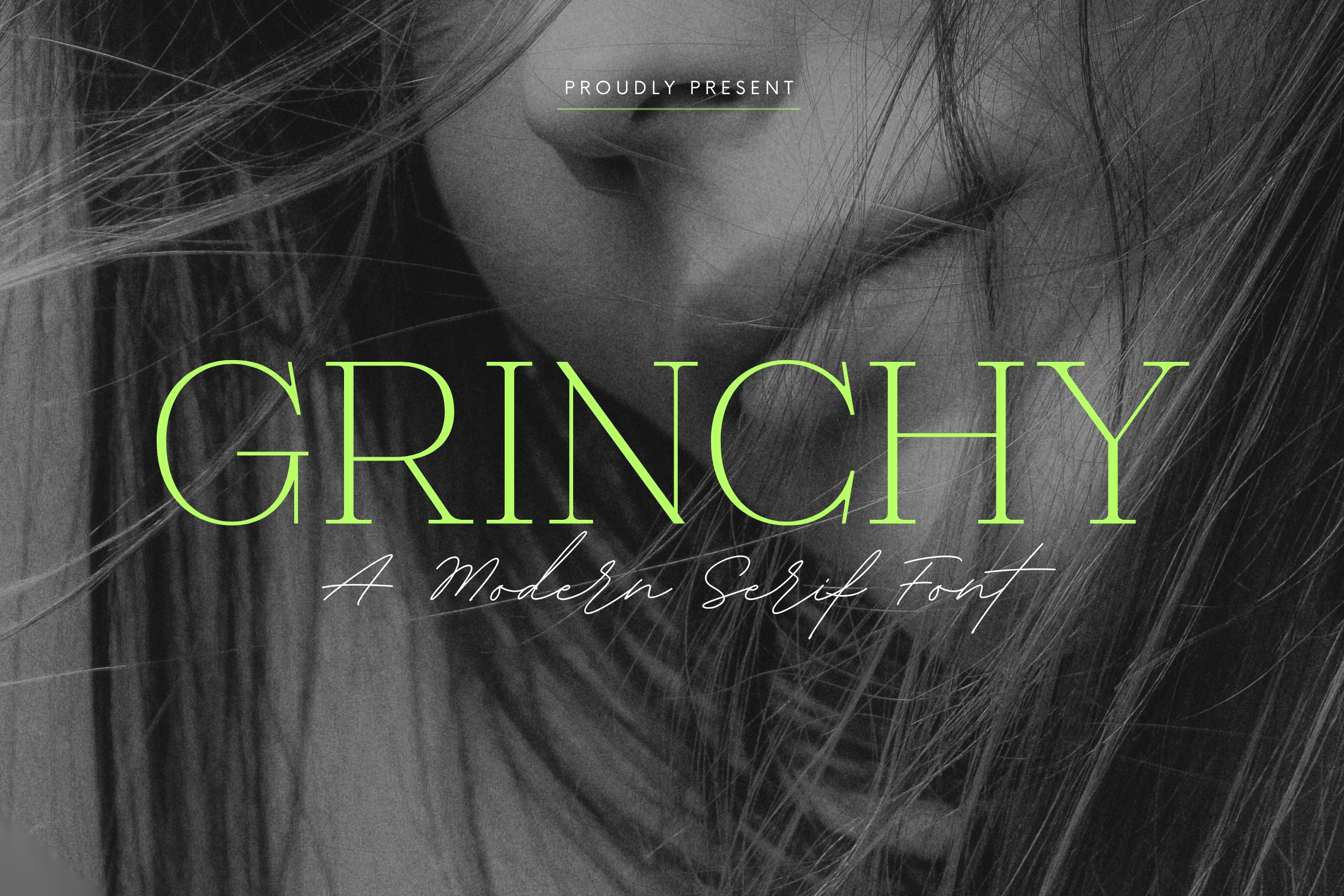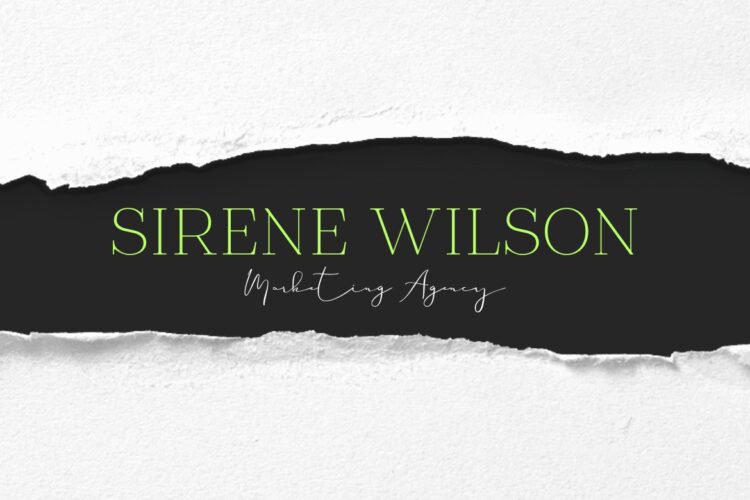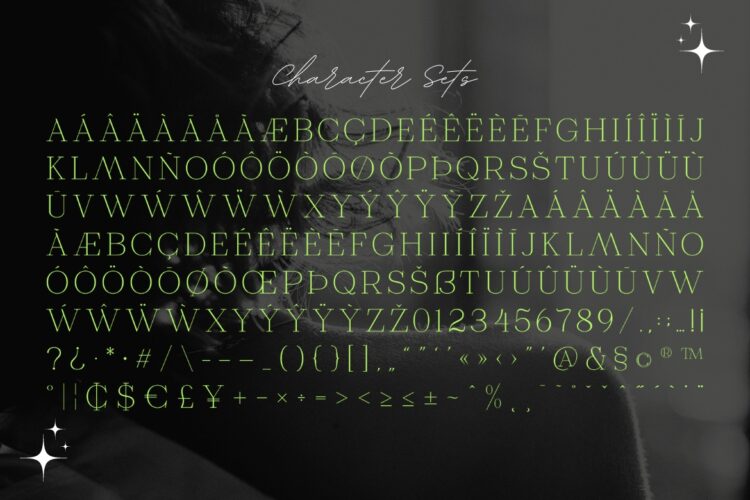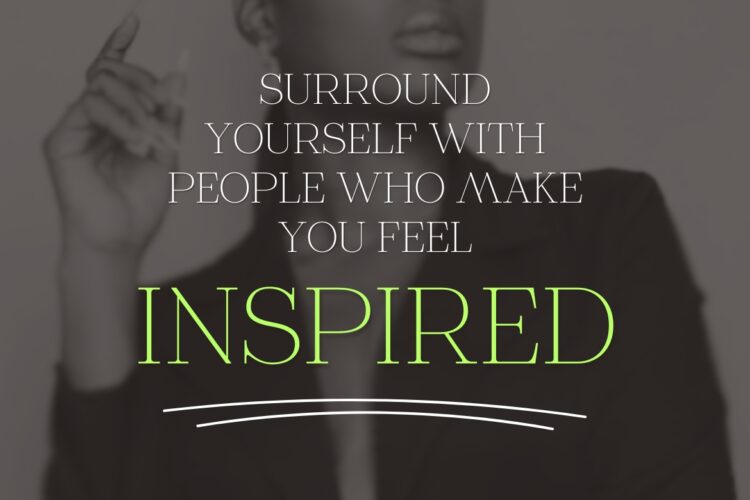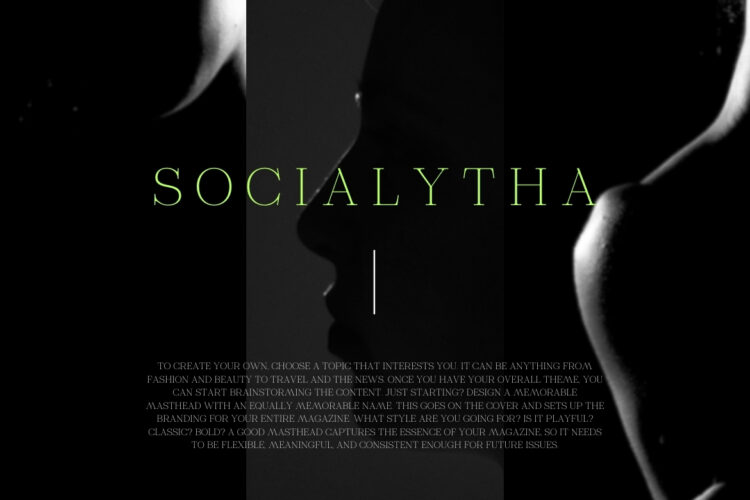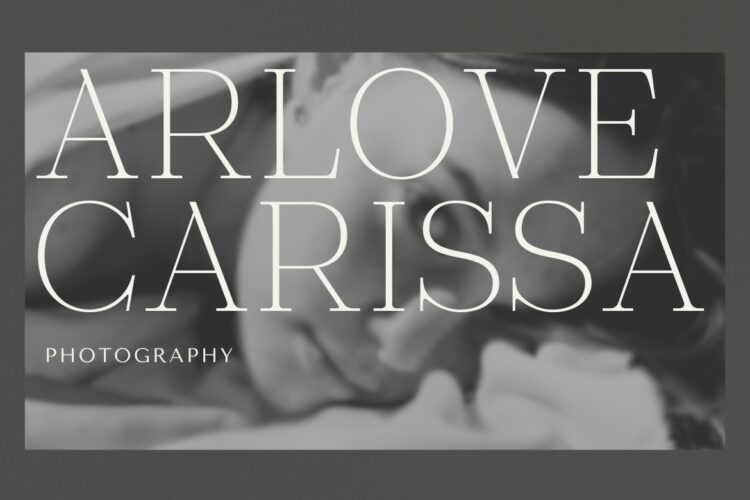
Introducing our new Grinchy, modern serif font with elegant style this is perfect for branding, logos, invitation, magazines, product packaging and more.
Grinchy – Modern Elegant Serif